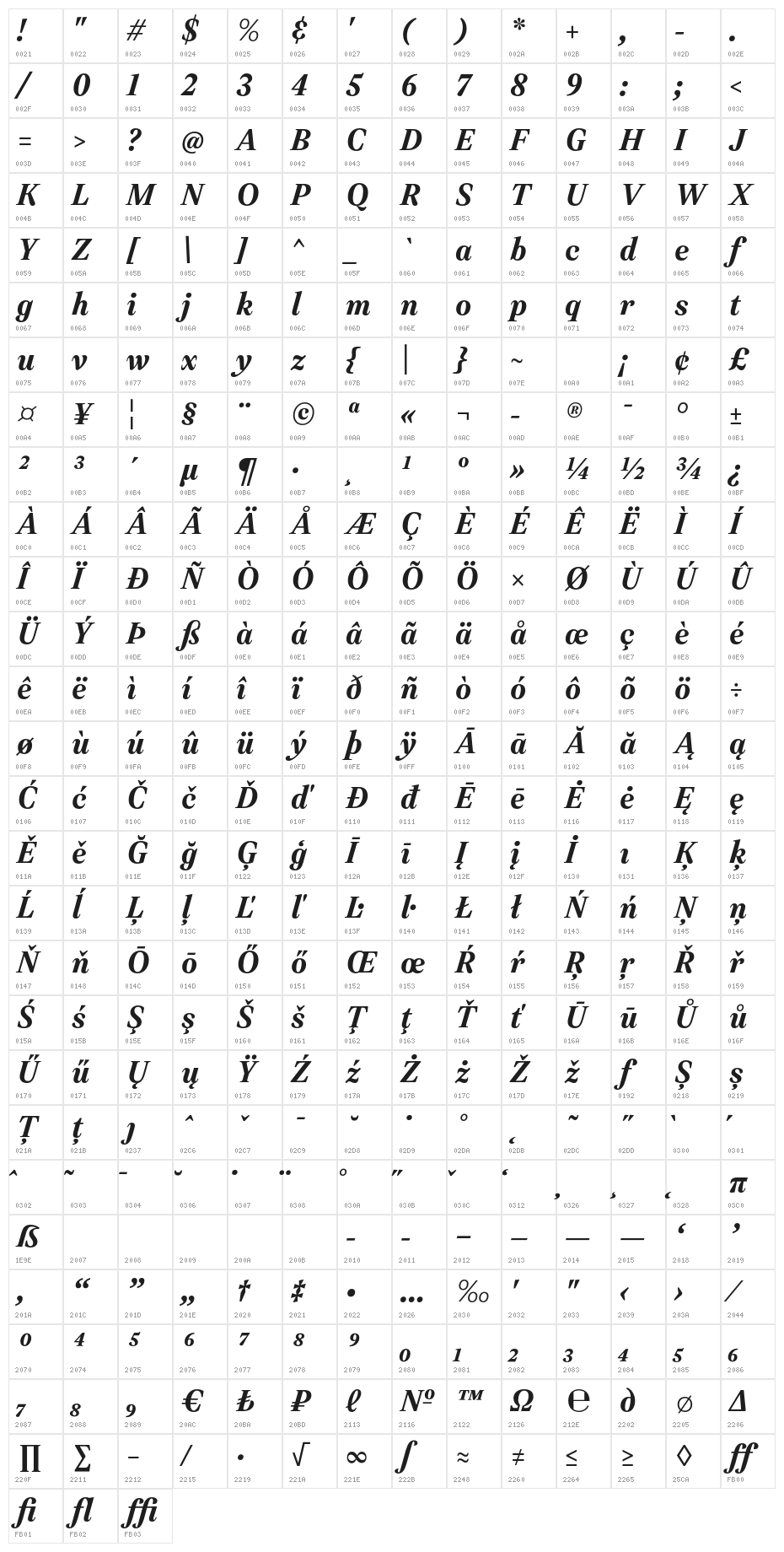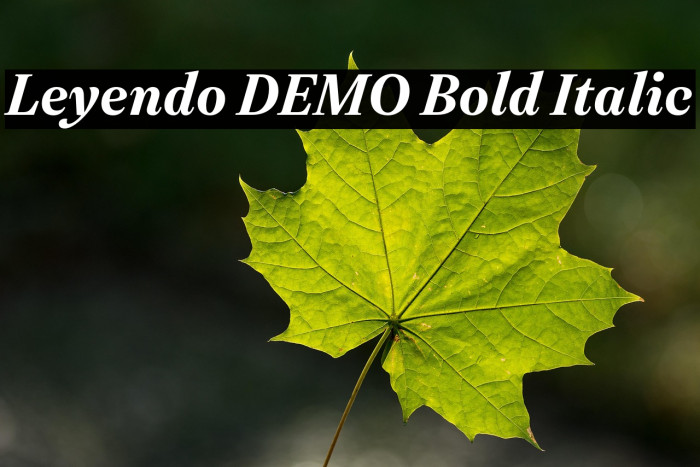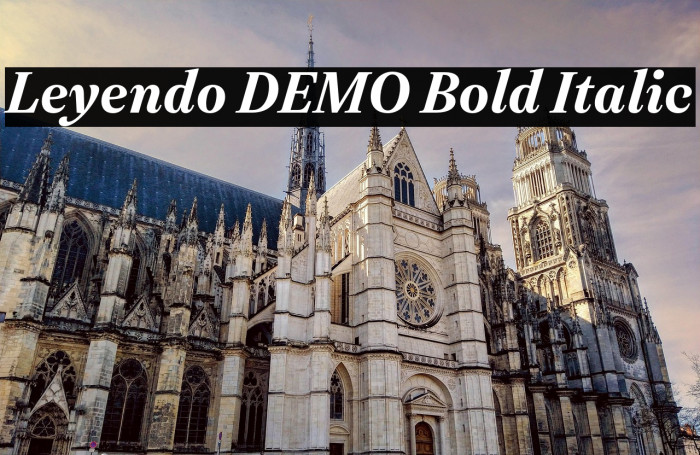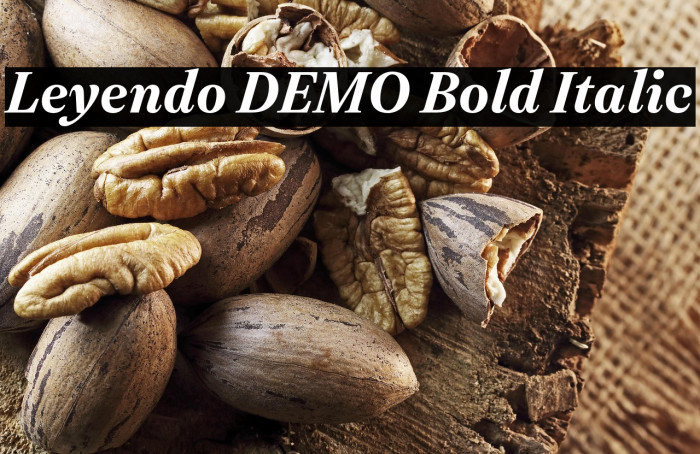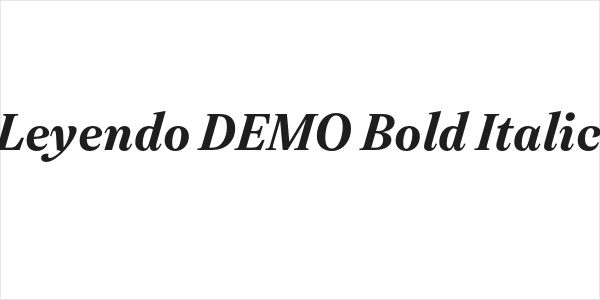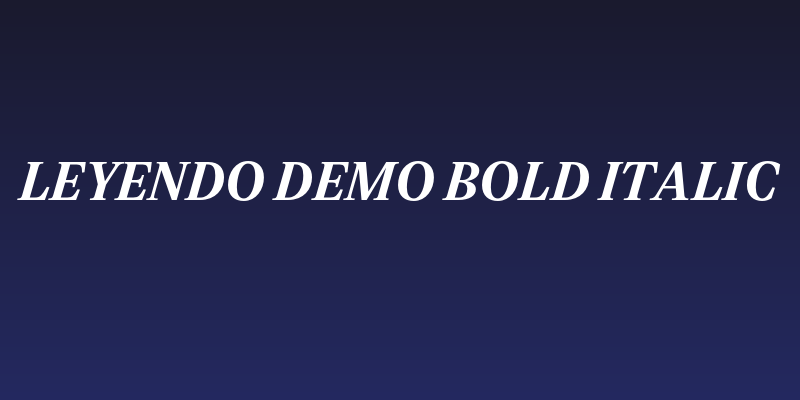
Leyendo DEMO Bold Italic Font
Leyendo DEMO Bold Italic Description
This font exhibits a bold and italicized style, characterized by its strong and dynamic presence. The uppercase letters are elegantly slanted, adding a sense of movement and sophistication. The lowercase letters maintain a consistent italic angle, complementing the uppercase with a harmonious flow. Numbers are bold and clear, ensuring readability. Special characters are designed with the same bold italic flair, making them stand out effectively. The overall design is modern yet timeless, suitable for a variety of applications where emphasis and style are desired.